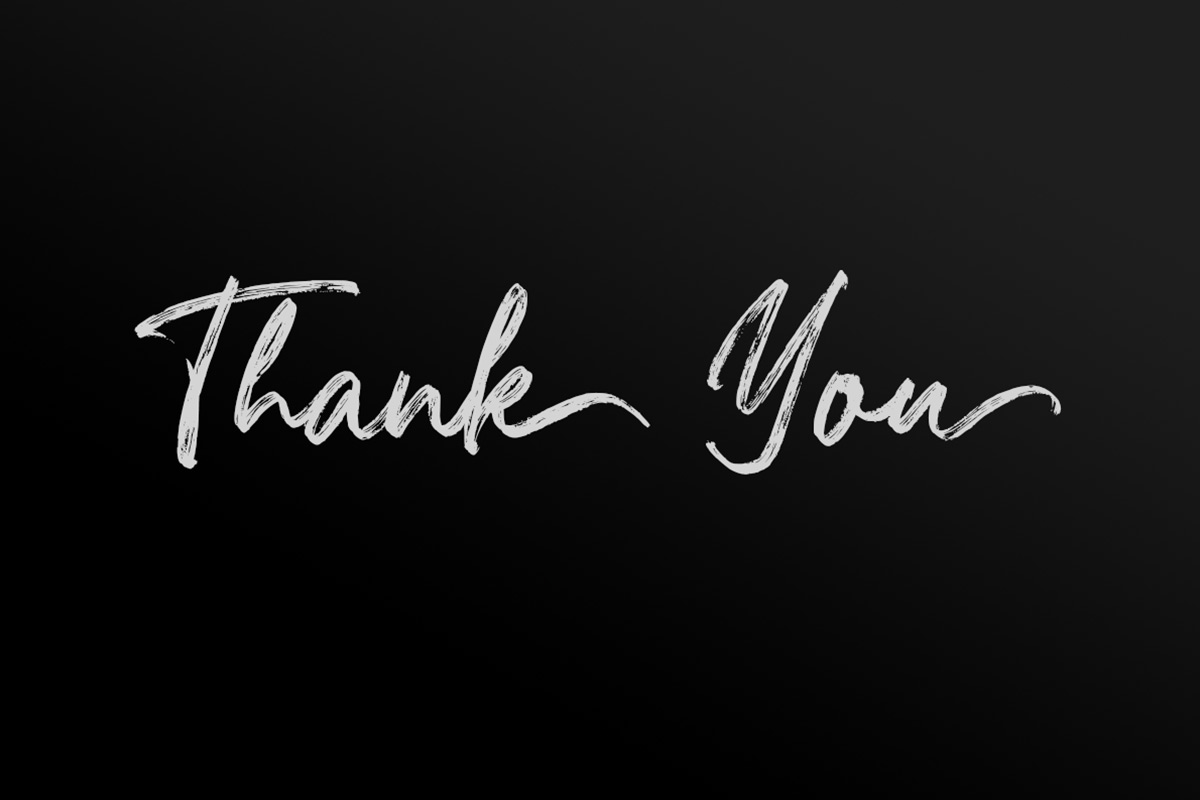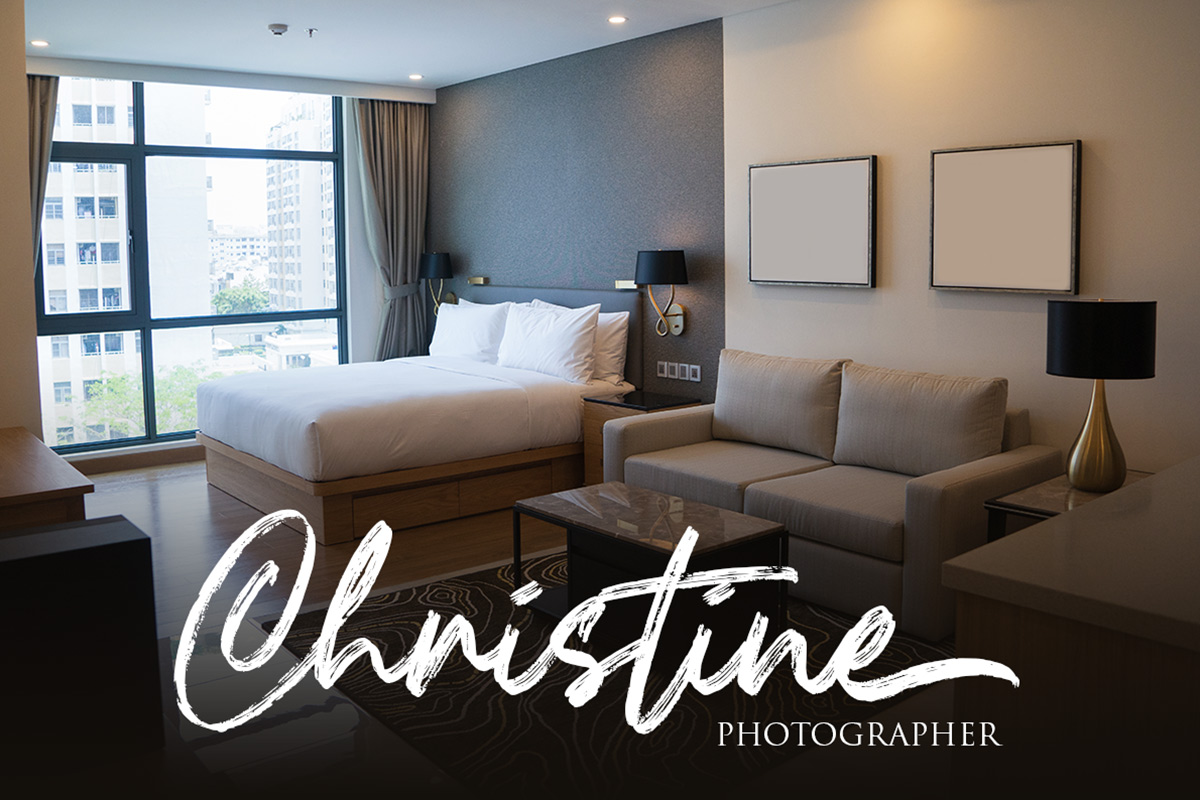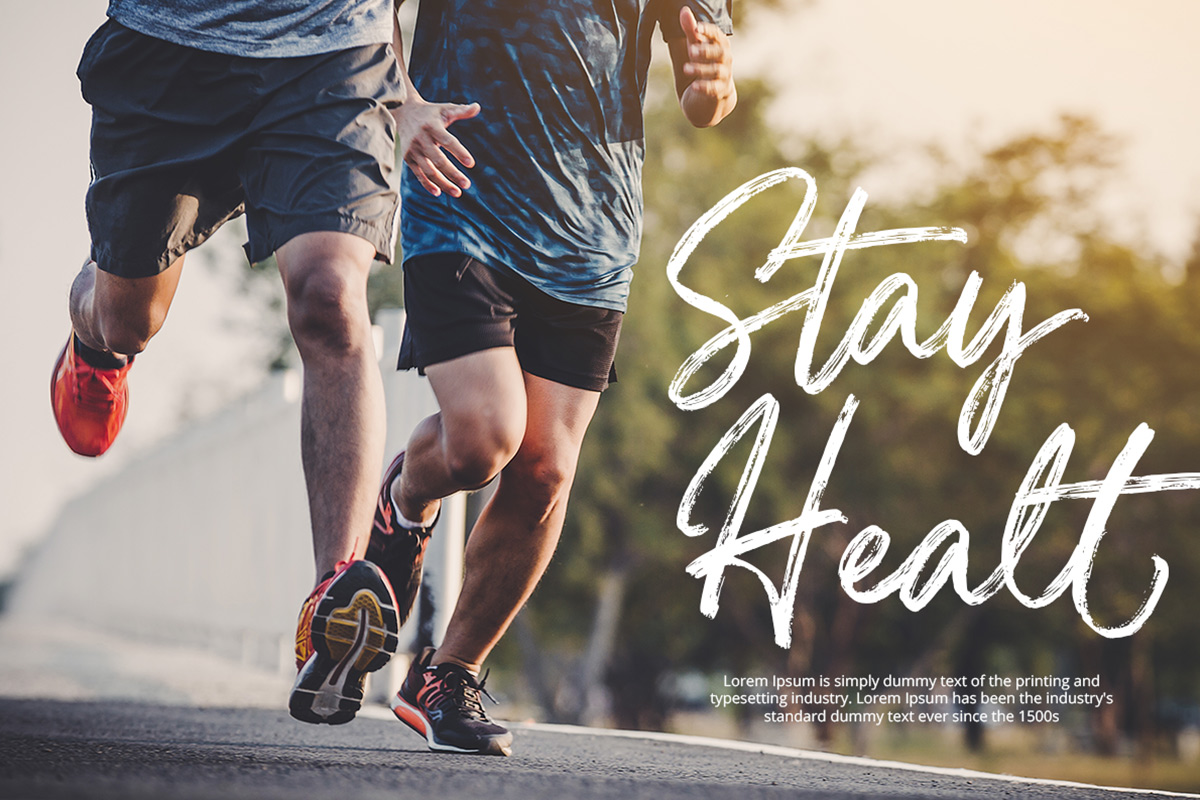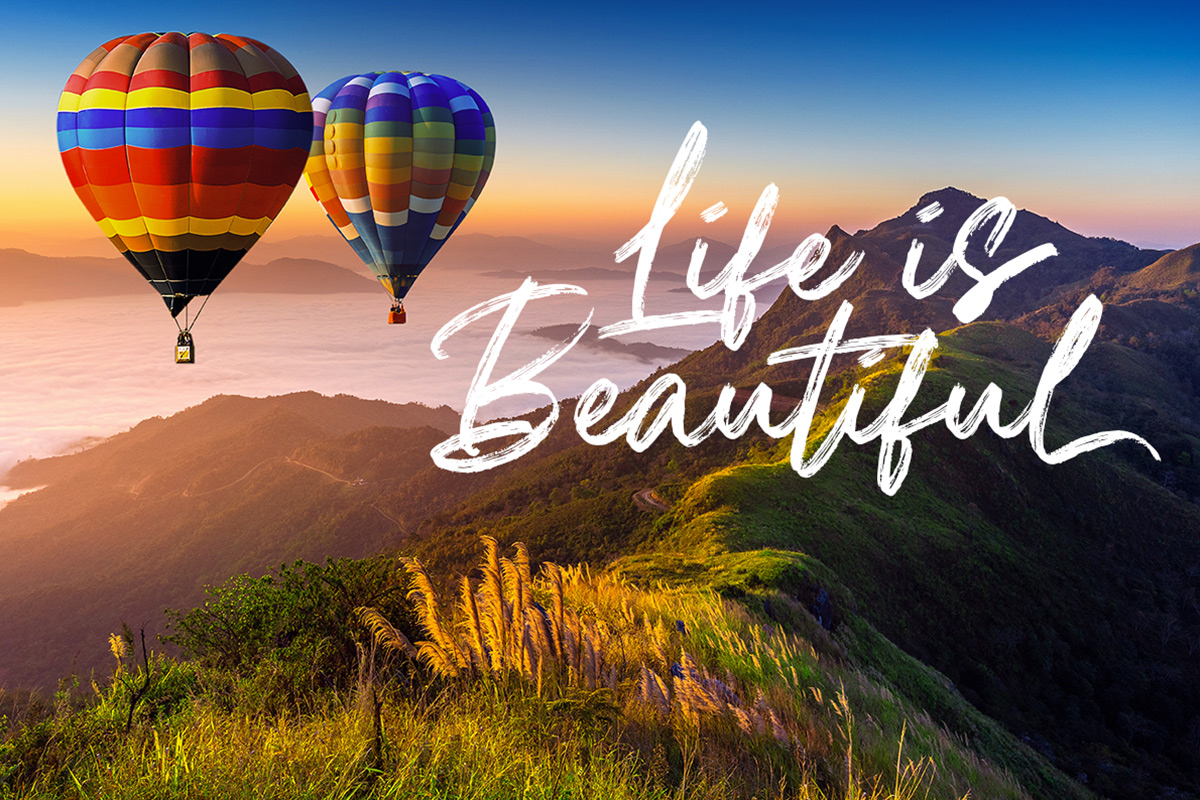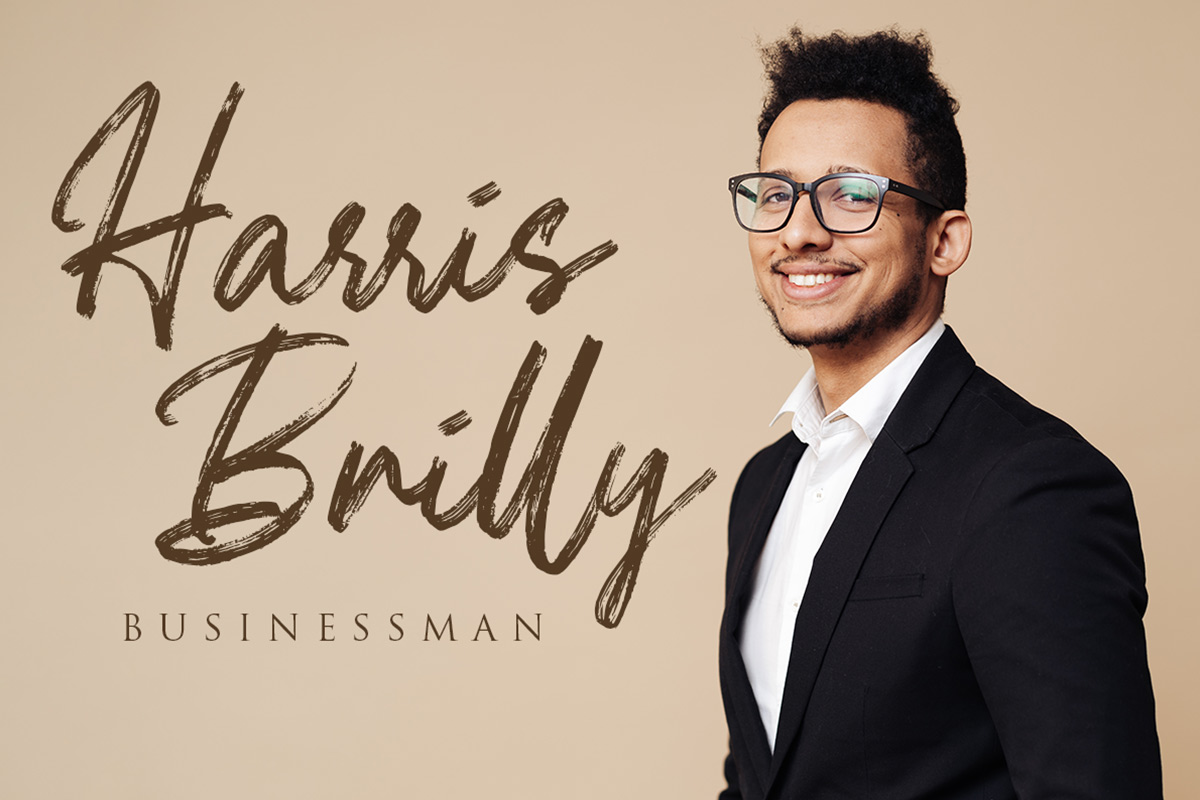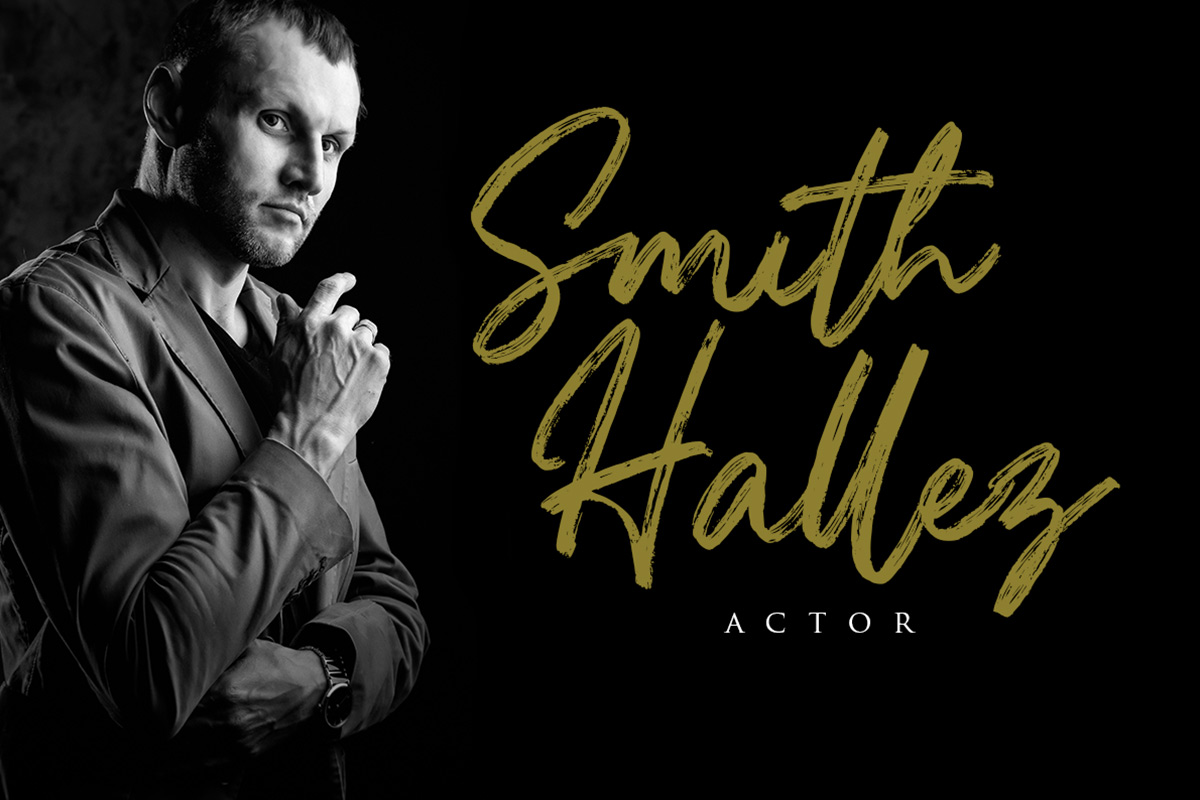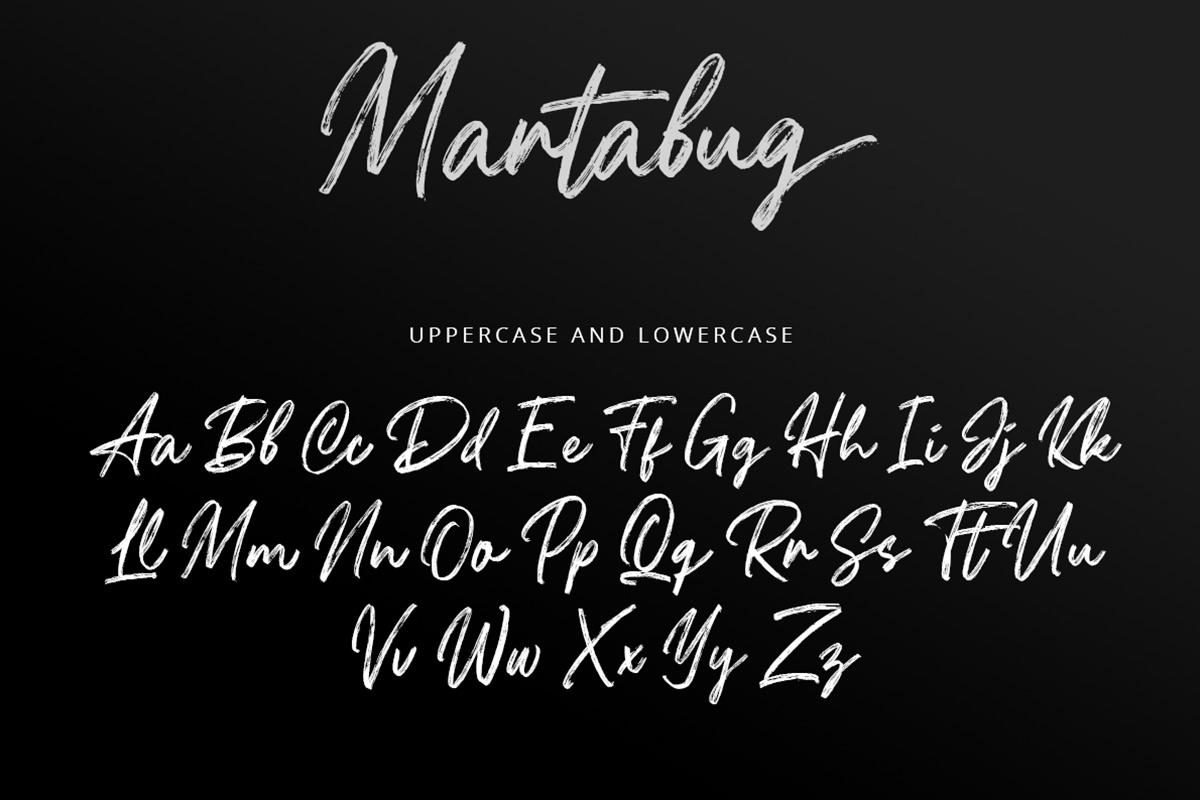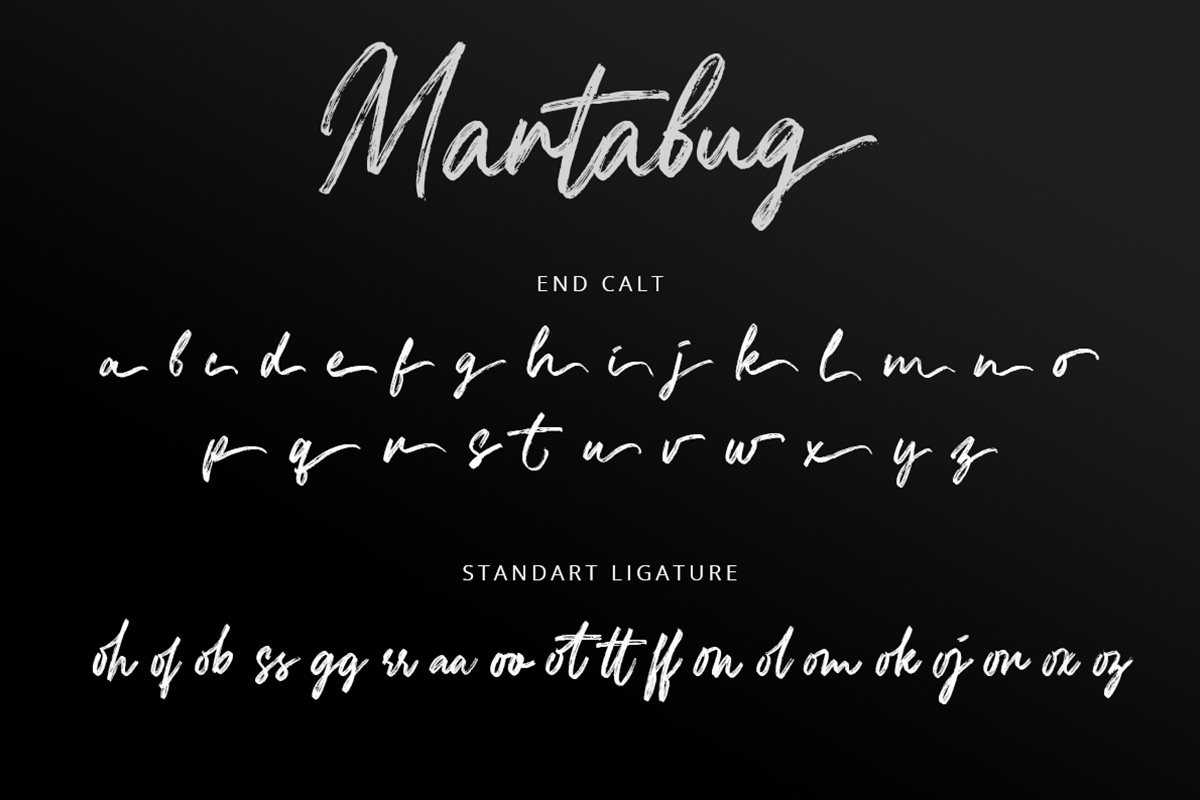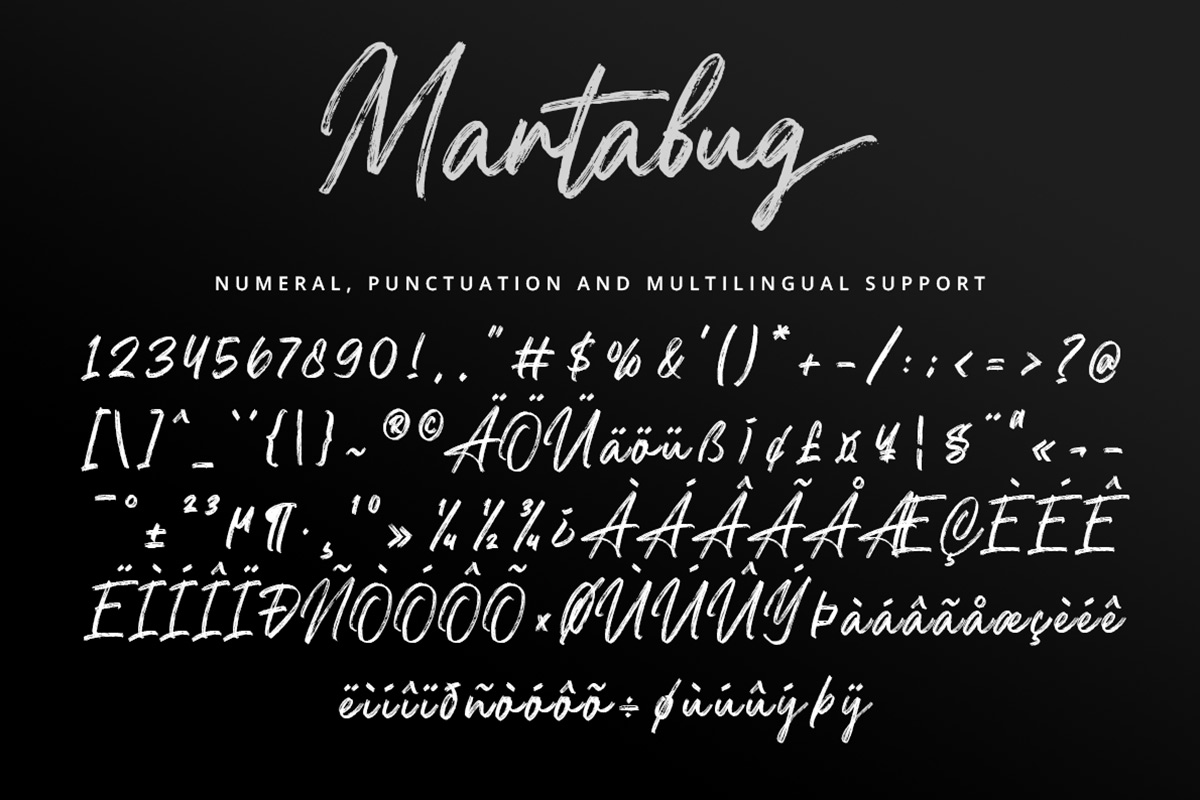
Martabug Handwritten Brush Font is a type of Brush font family. It is one of our non-script brush font collections. This typeface is a font type that uses brushes in its creation. Martabug Handwritten Brush Font looks very artistic and has a solid hand-made impression in its style. The rough edges and scratches on the font design add so much more to the font's aesthetic and modern impression. At the same time, these facts make Martabug Handwritten Brush Font one of the best choices to put on modern lifestyle tools. Martabug Handwritten Brush Font can be used to design graffiti, a mural, wall-paint art, skateboard art, or other types of street-inspired designs. Artworks on clothing items or merchandise such as t-shirts, motorbikes, or helmet stickers can also use the Martabug Handwritten Brush Font as part of their design. If you are into dangerous, dark, metropolitan city-themed, or ghetto-inspired artworks, you should consider picking up Martabug Handwritten Brush Font as the newest member of your new collections. The suitability of the Martabug Handwritten Brush Font against many things shows that Martabug Handwritten Brush Font is a font that must be taken into appeal and determine which font to use. Our collection of font brushes is compatible for use as Figma fonts, Canva fonts, Freepik Fonts, and Adobe Fonts. They also work as Windows Fonts and Apple Fonts. For your social media needs, you can use and install the fonts in our collection of brush typefaces to use as Instagram Fonts, Facebook Fonts, and Twitter Fonts.